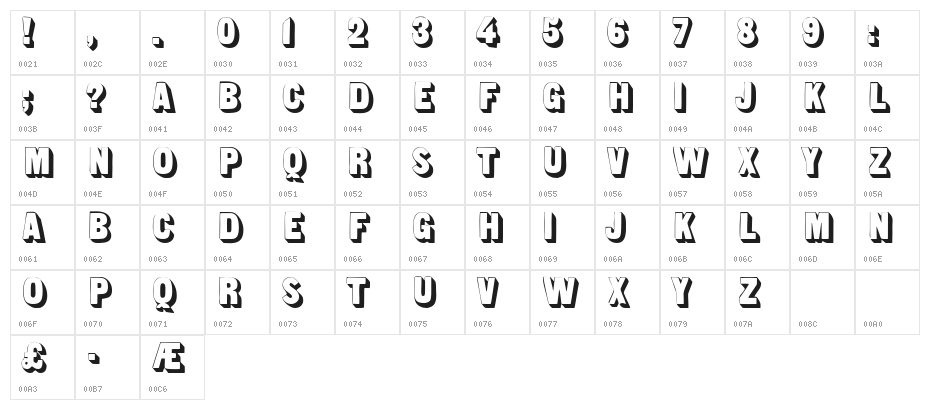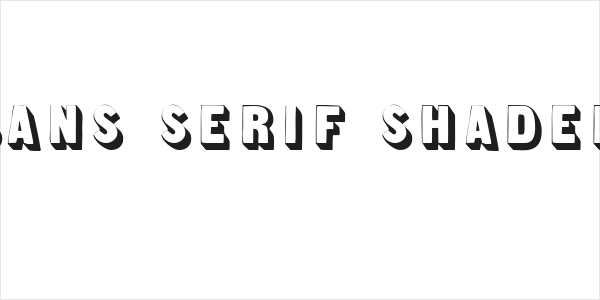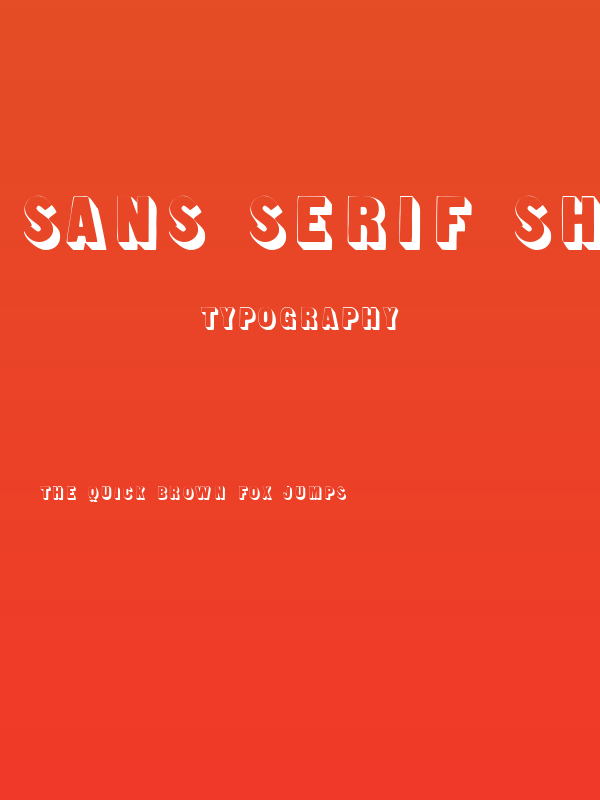
Sans Serif Shaded Font
Sans Serif Shaded Description
This font features a bold, sans-serif style with a distinct shaded effect that gives each character a three-dimensional appearance. The letters are uniformly thick, providing a strong and impactful visual presence. The shading adds depth, making the characters appear as if they are slightly raised from the surface. This effect is consistent across all uppercase and lowercase letters, as well as numbers and special characters. The font maintains a clean and modern aesthetic, suitable for various design applications where a bold statement is desired.
| Proposed Projects | Ideal for posters, headlines, logos, and any design needing a bold, eye-catching font. |